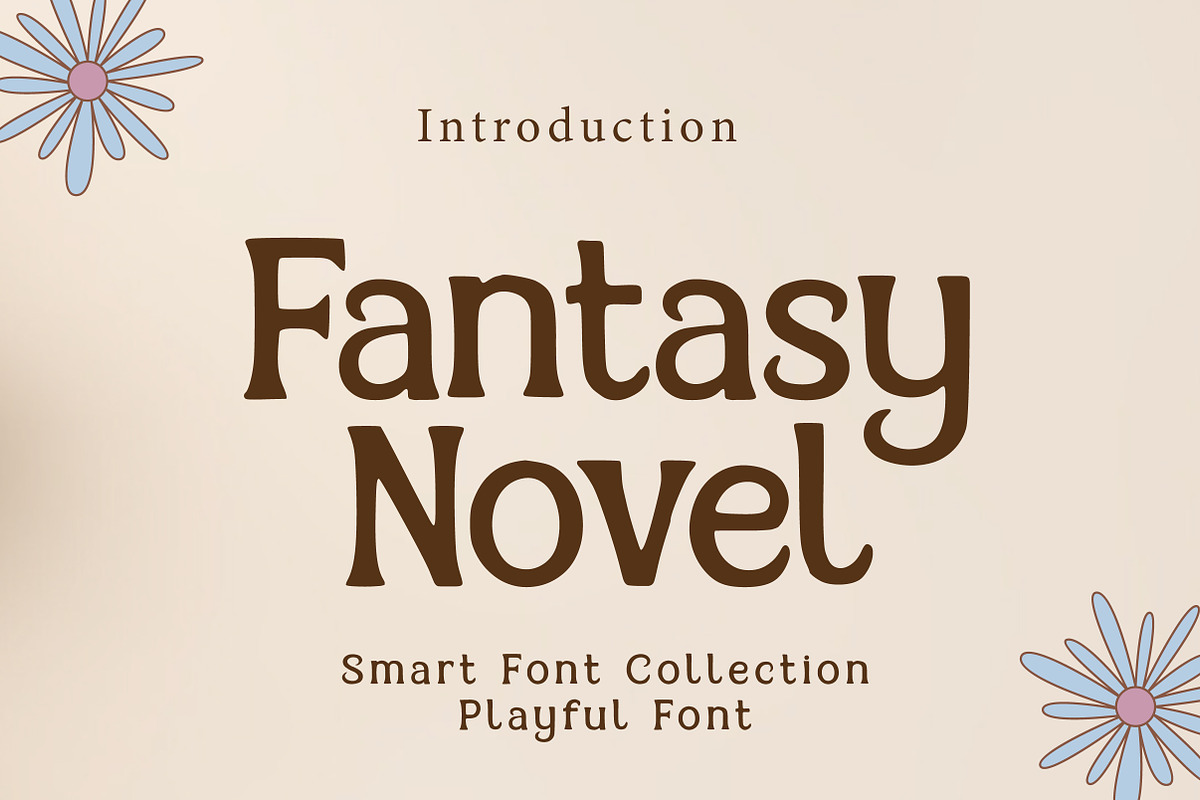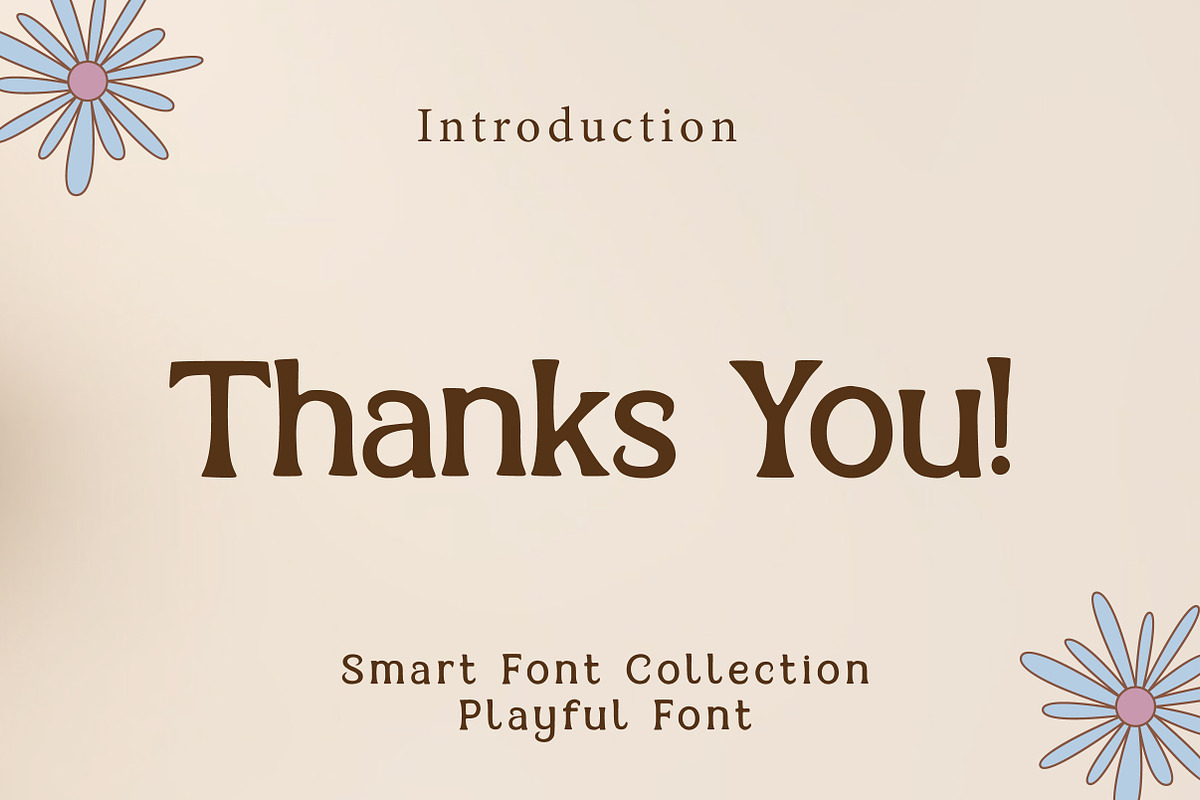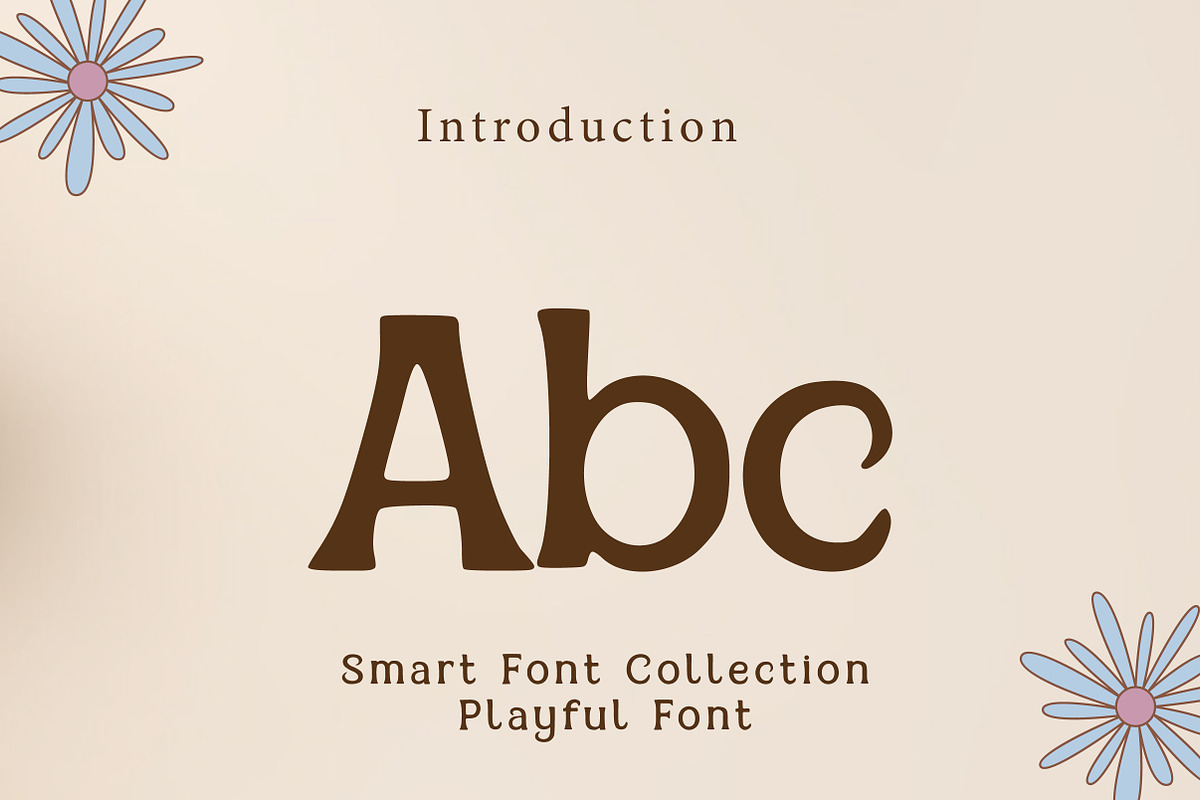
Fantasy novel
Fantasy Novel is a bold, friendly serif display font with a classic storybook feel and a modern readable touch. Its rounded curves, sturdy stems, and softly shaped serifs create a warm, literary vibe—perfect for designs that need charm, clarity, and character. The style feels nostalgic yet clean, making it ideal for both playful and professional typography.
Perfect for book covers, novel titles, children’s story projects, posters, branding, editorial headlines, café menus, labels, packaging, quotes, and social media graphics. Fantasy Novel stands out beautifully in titles and large text while still keeping a comfortable reading rhythm.
If you want a font that feels like a cozy book title—strong, cute, and timeless—Fantasy Novel is a great choice.